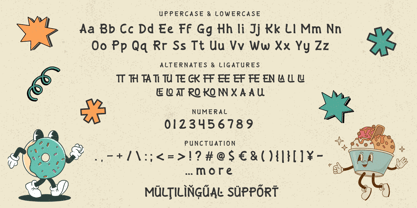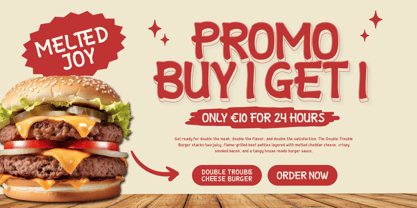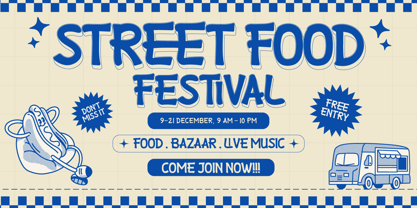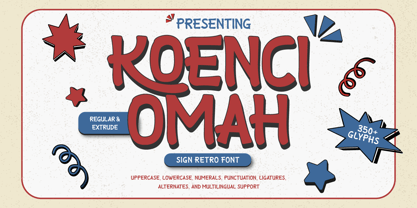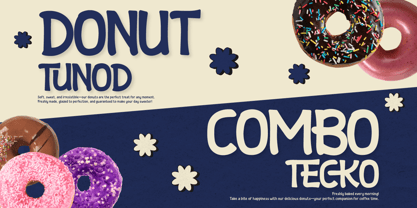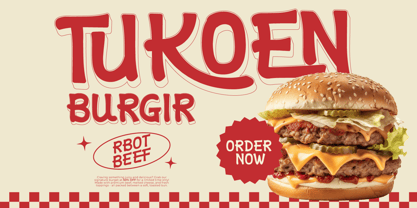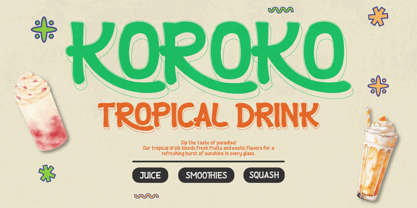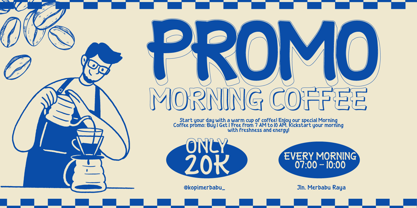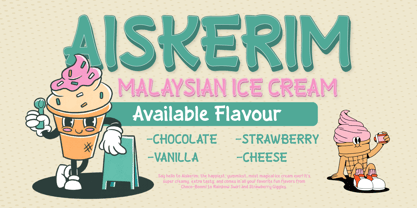
Koenci Omah is a playful sign retro font inspired by classic hand-painted signage and vintage typography. With bold strokes and charming curves, this font captures the nostalgic spirit of retro design while remaining highly versatile for modern projects.
The font comes in Regular and Extrude styles, giving you flexibility to create striking 3D effects and layered designs with ease. Packed with 350+ glyphs, alternates, ligatures, and multilingual support, Koenci Omah is perfect for posters, packaging, logos, restaurant menus, and branding that needs a bold and friendly retro touch.
Bring back the charm of the golden signage era with Koenci Omah—a font that makes your words stand out with personality and style.
- Fonts include Multilingual: Support for 85 languages.